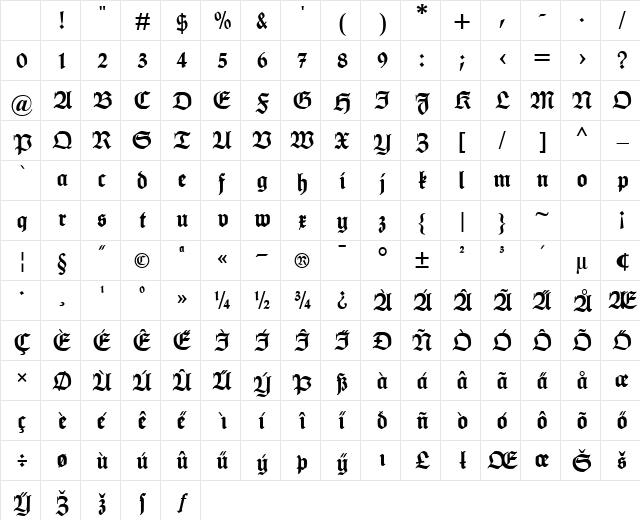
Complete HumboldtFrakturUNZ1L Italic glyph index. Displaying only characters natively supported by HumboldtFrakturUNZ1L Italic font.
HumboldtFrakturUNZ1L draws on the rich tradition of blackletter calligraphy, with dense, angular strokes that evoke medieval manuscripts and old-world craftsmanship. The slanted form adds forward momentum and visual energy. Its bold stroke weight gives it real presence on the page.
Font Pairing: Pair with a clean neutral sans-serif for body copy to let HumboldtFrakturUNZ1L's character lead without overwhelming the composition.
Pro Tip: Reserve HumboldtFrakturUNZ1L for display and logo use - pair it with a clean sans-serif for body copy to prevent the composition from feeling oppressive.